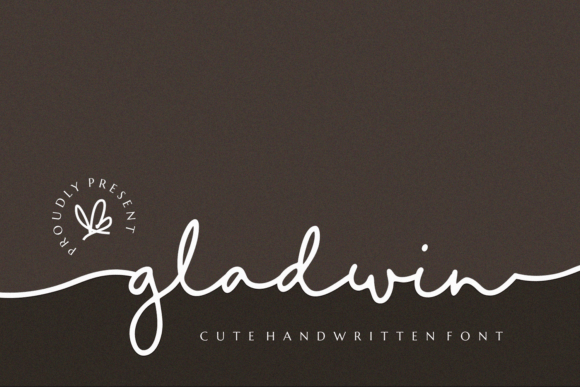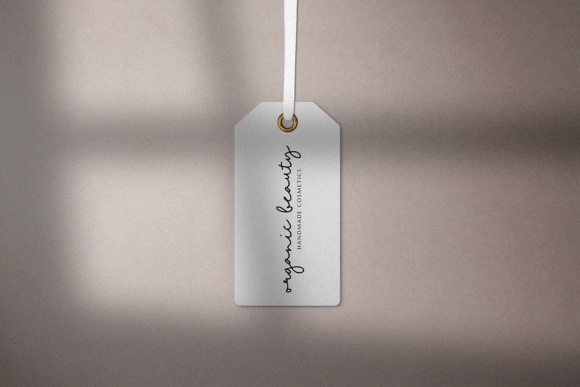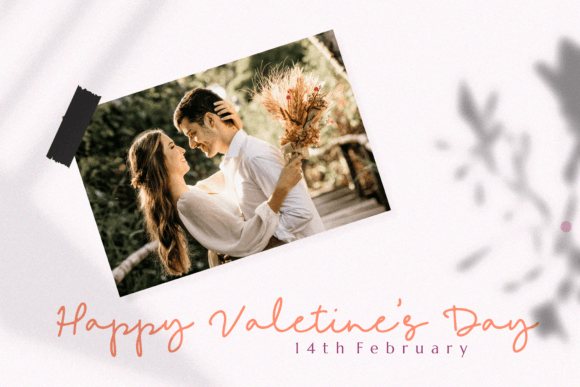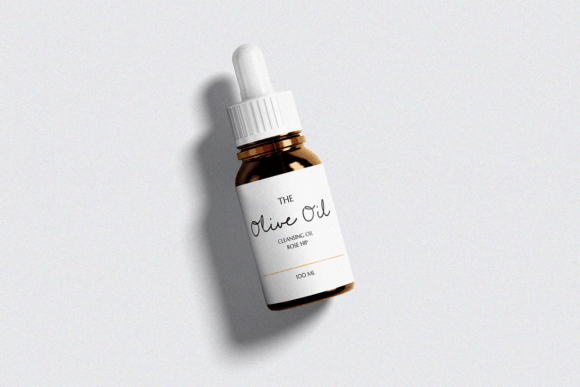
Gladwin Font: Elegant Handwritten Script for Signature Logo Design
About the Gladwin Font
Step up your design game with Gladwin Font, a font that exudes confidence and style. Gladwin is a modern and feminine handwritten script font. Its stylish and elegant appearance will help you elevate any design project you wish to create.
Gladwin’s elegant, feminine style is ideal for projects requiring a touch of sophistication. It shines in applications such as wedding invitations, logos for beauty brands, or short quotes on social media. However, its delicate nature makes it unsuitable for body text or UI elements where readability is paramount. Avoid using it in lengthy paragraphs or small sizes.
For a balanced aesthetic, pair Gladwin with a clean sans-serif like Lato for body copy, or a modern serif like Playfair Display for a more classic feel. A geometric sans-serif would offer a striking contrast, while a playful script could complement its feminine charm, depending on the overall desired effect.
The font projects a delicate, graceful personality, suggesting luxury and refinement. Its inherent femininity makes it a strong choice for brands targeting a female demographic or those focusing on beauty, fashion, or lifestyle.
Gladwin Font Usage Examples
Gladwin Font Example